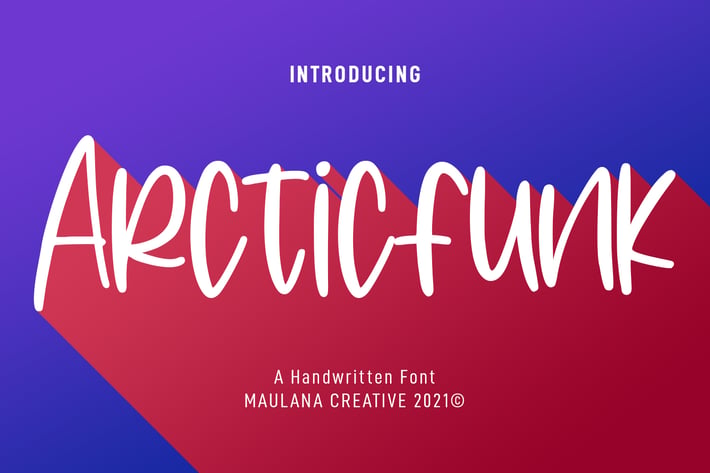
Arcticfunk Handwritten Font
Arcticfunk is a fancy handwritten font. With regular stroke, fun character with a bit of ligatures. To give you an extra creative work. Arcticfunk font support multilingual more than 100+ language. This font is good for logo design, Social media, Movie Titles, Books Titles, a short text even a long text letter and good for your secondary text font with sans or serif. Make a stunning work with Arcticfunk font.